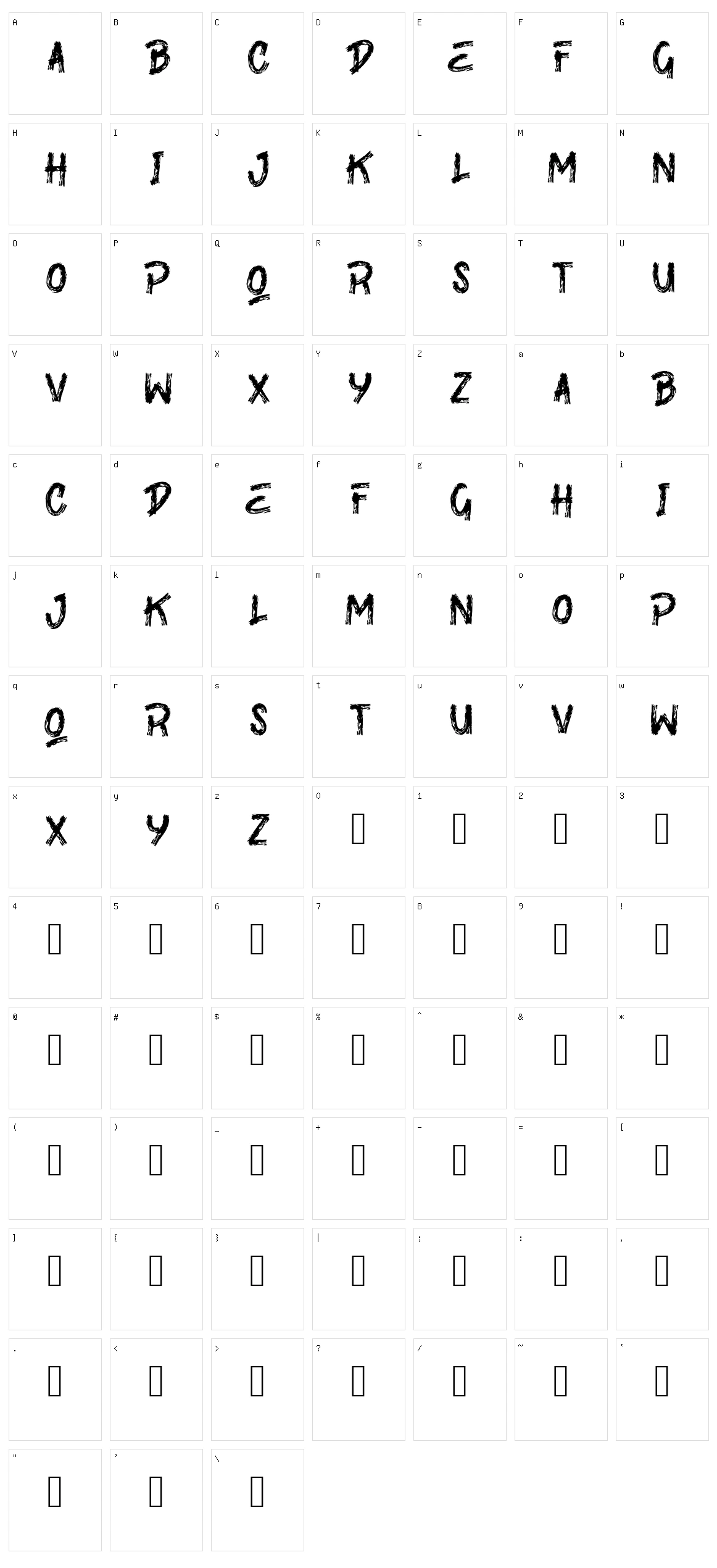
The free font Beko is carefully designed by kokostd, showcasing a thoughtful balance of creativity and usability and falls under the Script font style. When you download the ZIP file, it contains only 73.19 KB of font files, making it lightweight and quick to download. Please review the license details below to understand permitted usage and distribution rights. If license information is not available, we recommend using this font for personal projects only or contacting the author directly for commercial usage permissions.